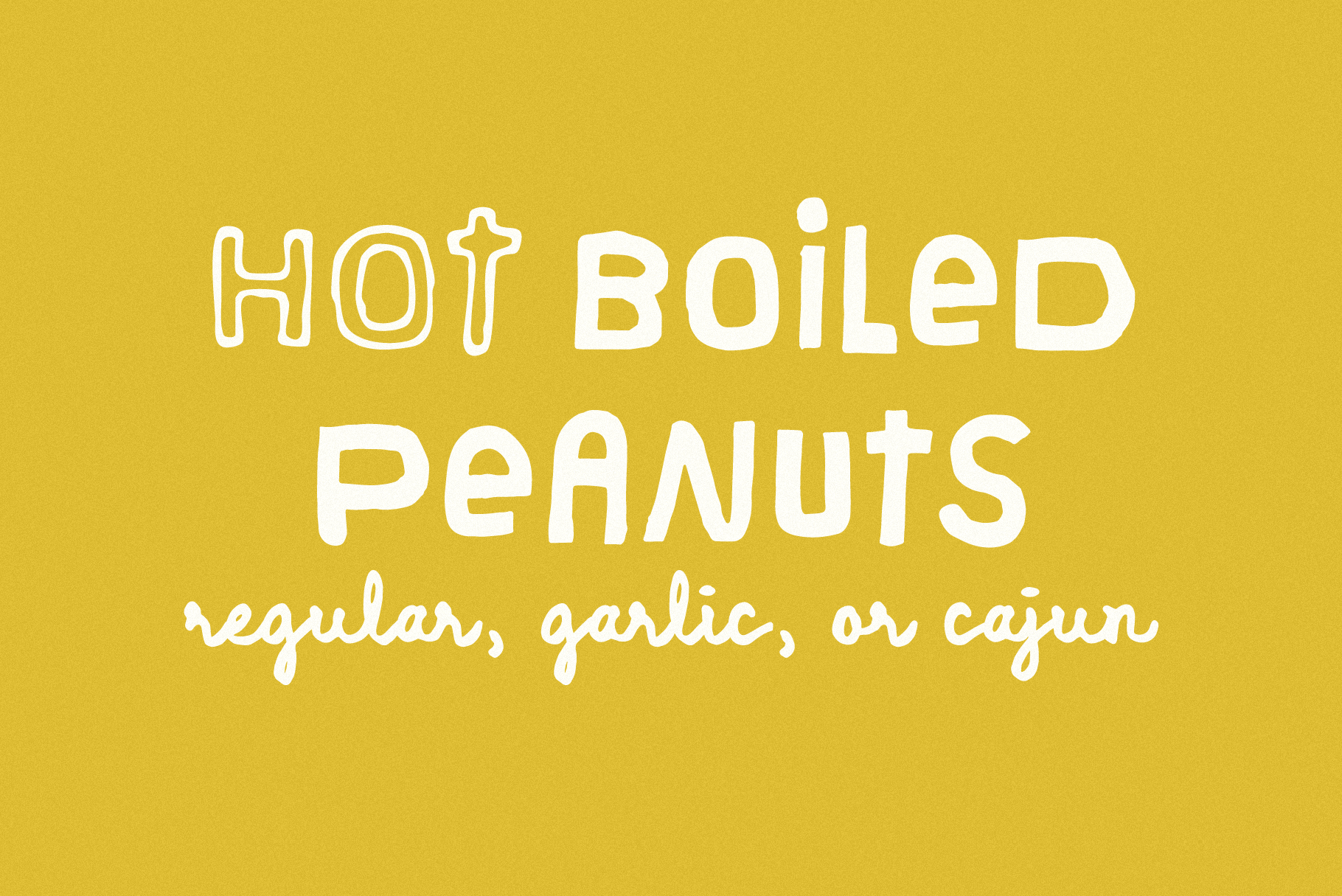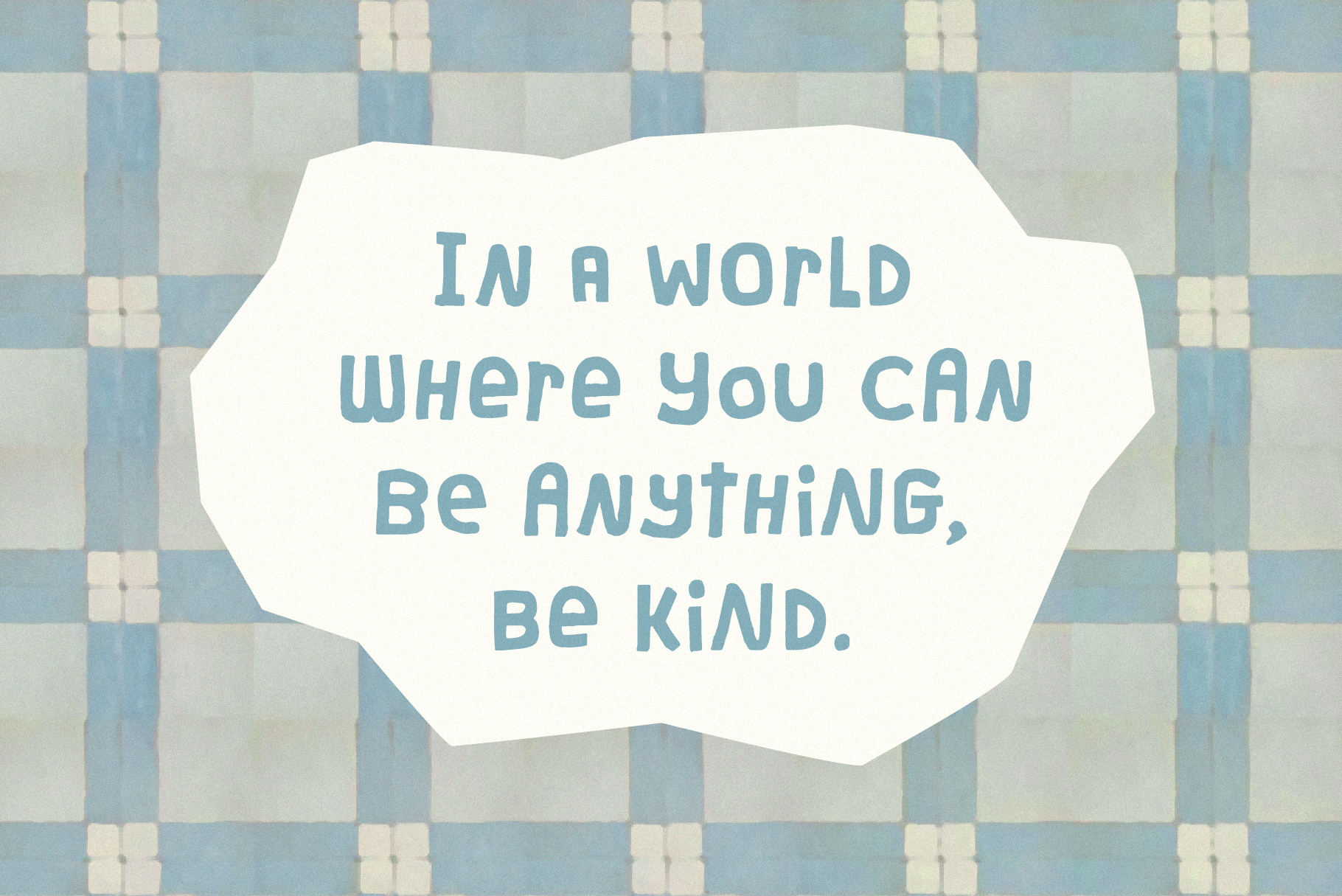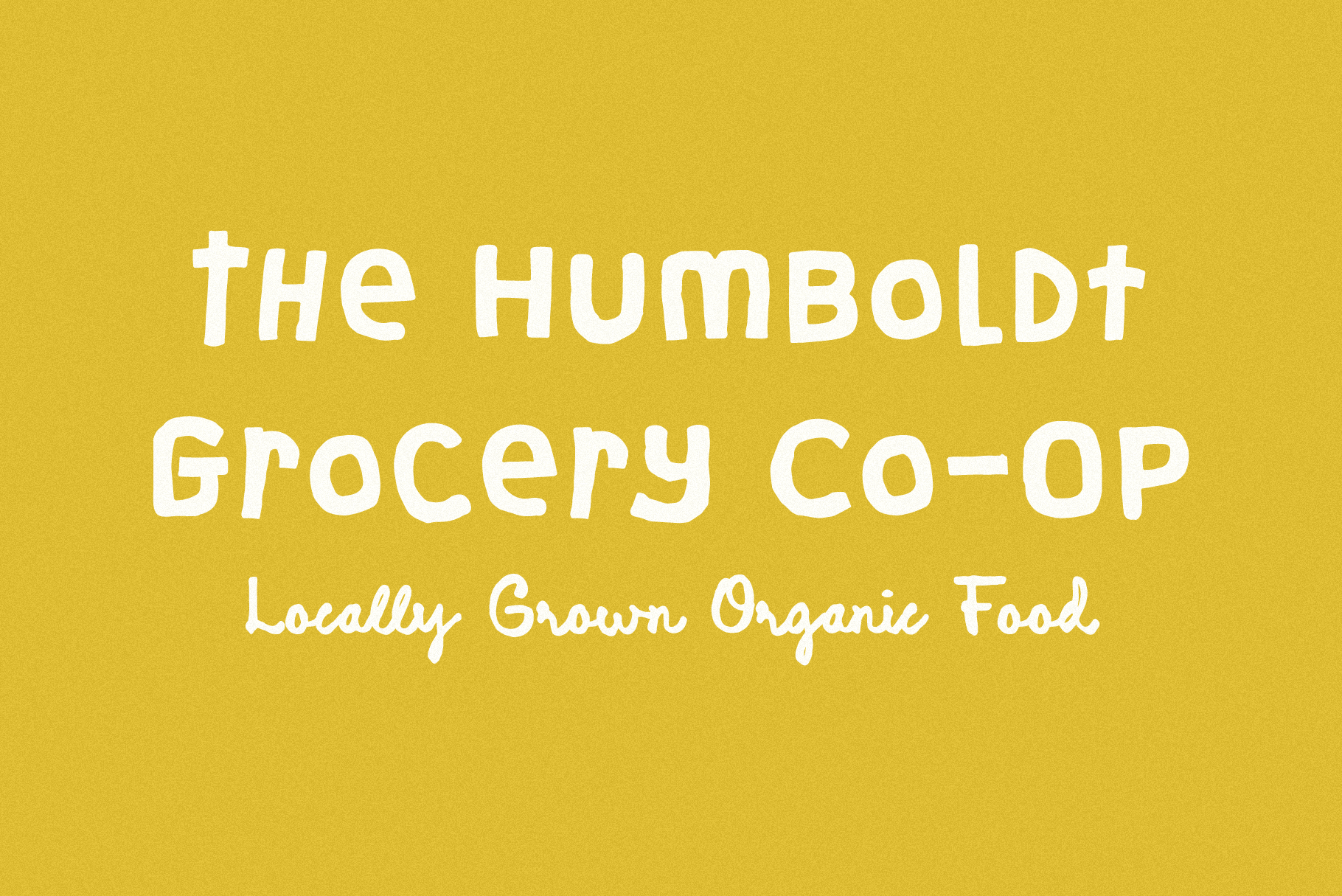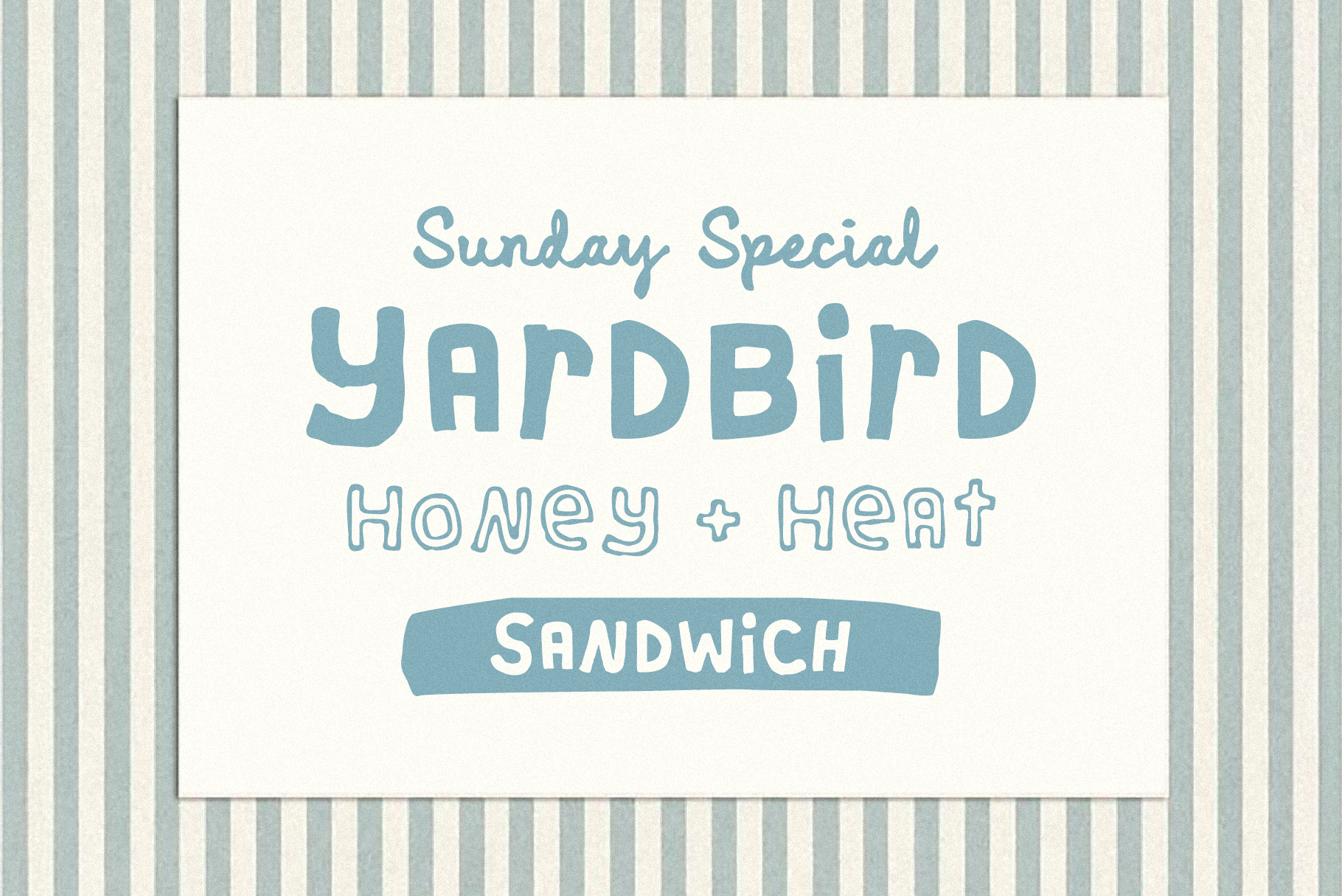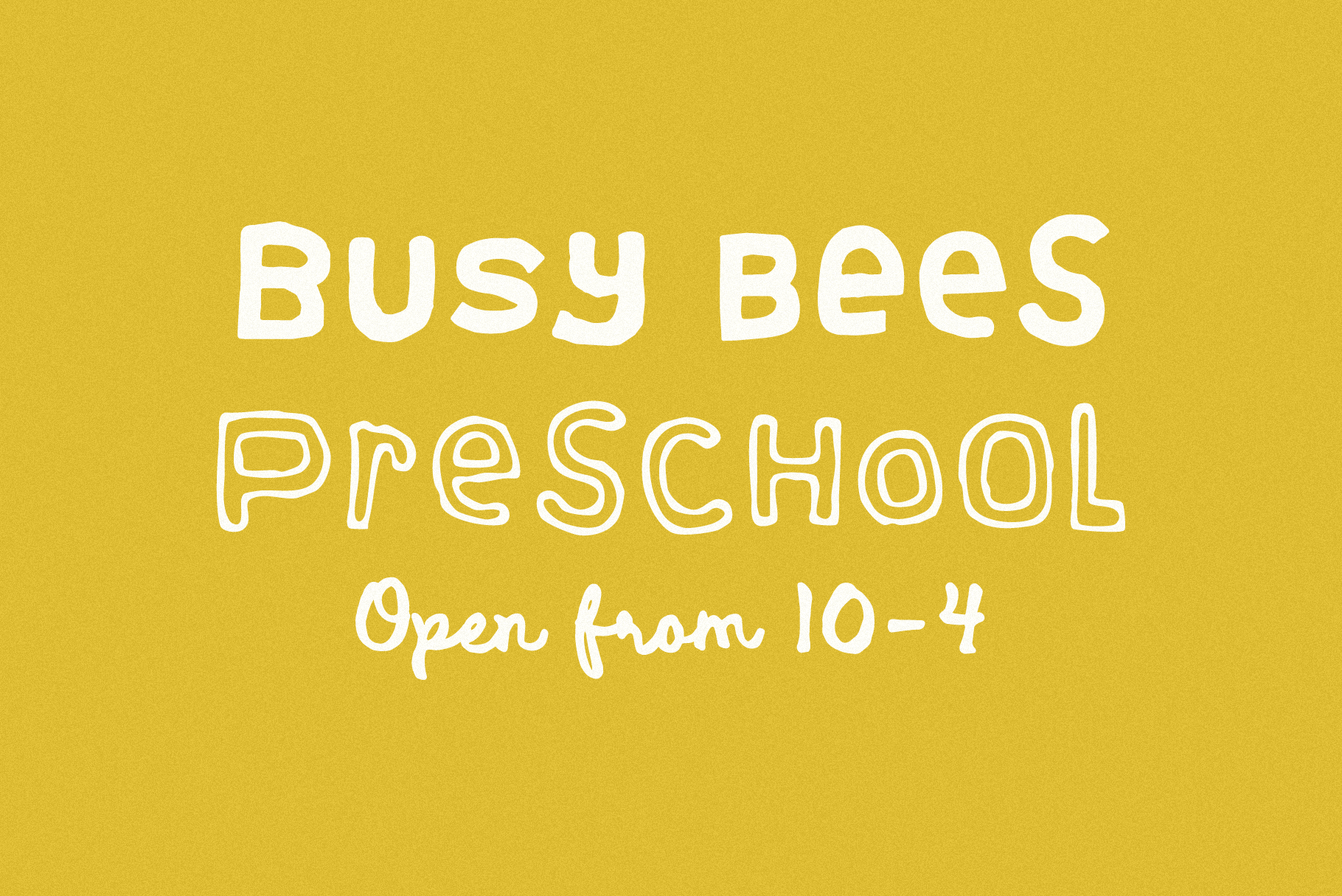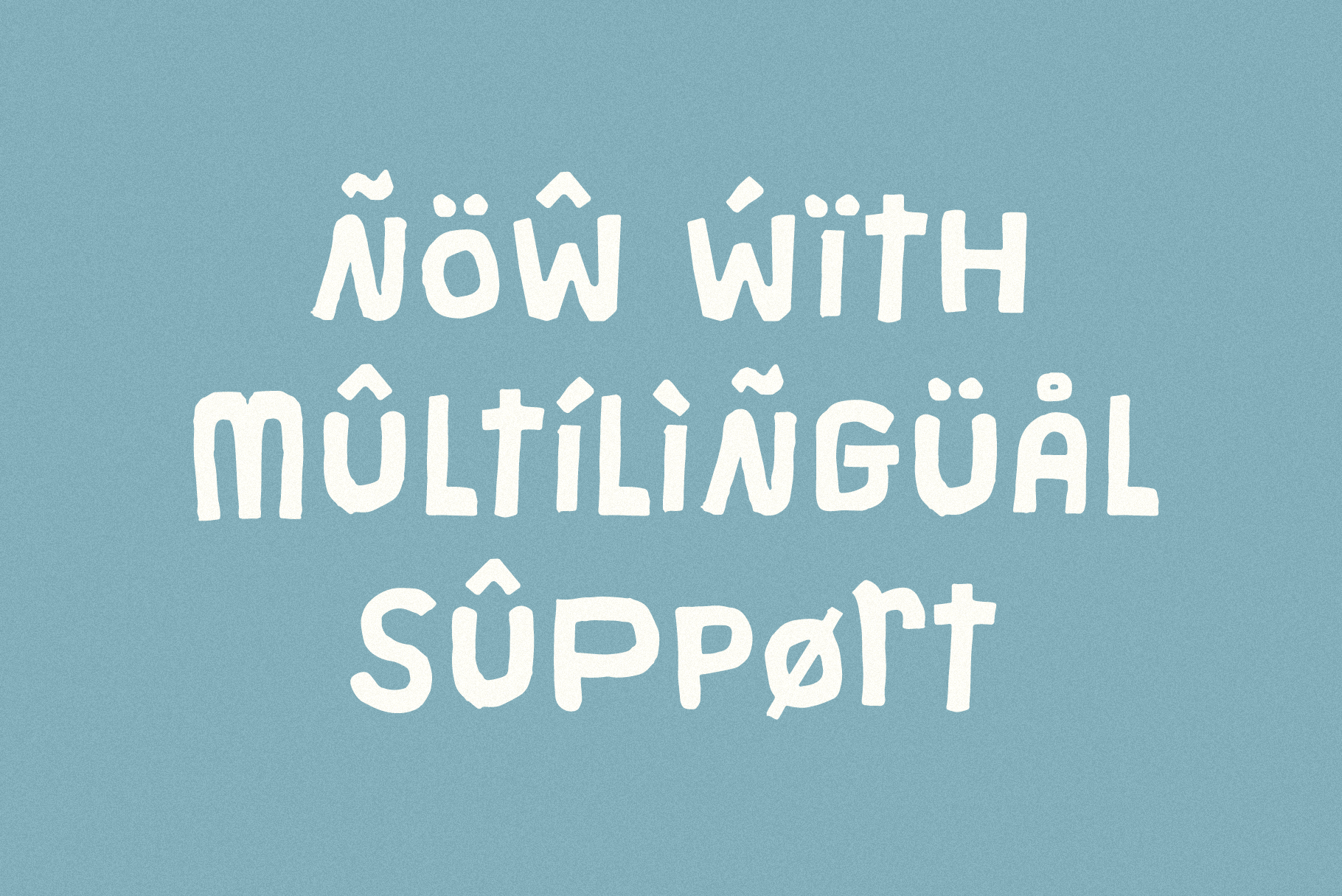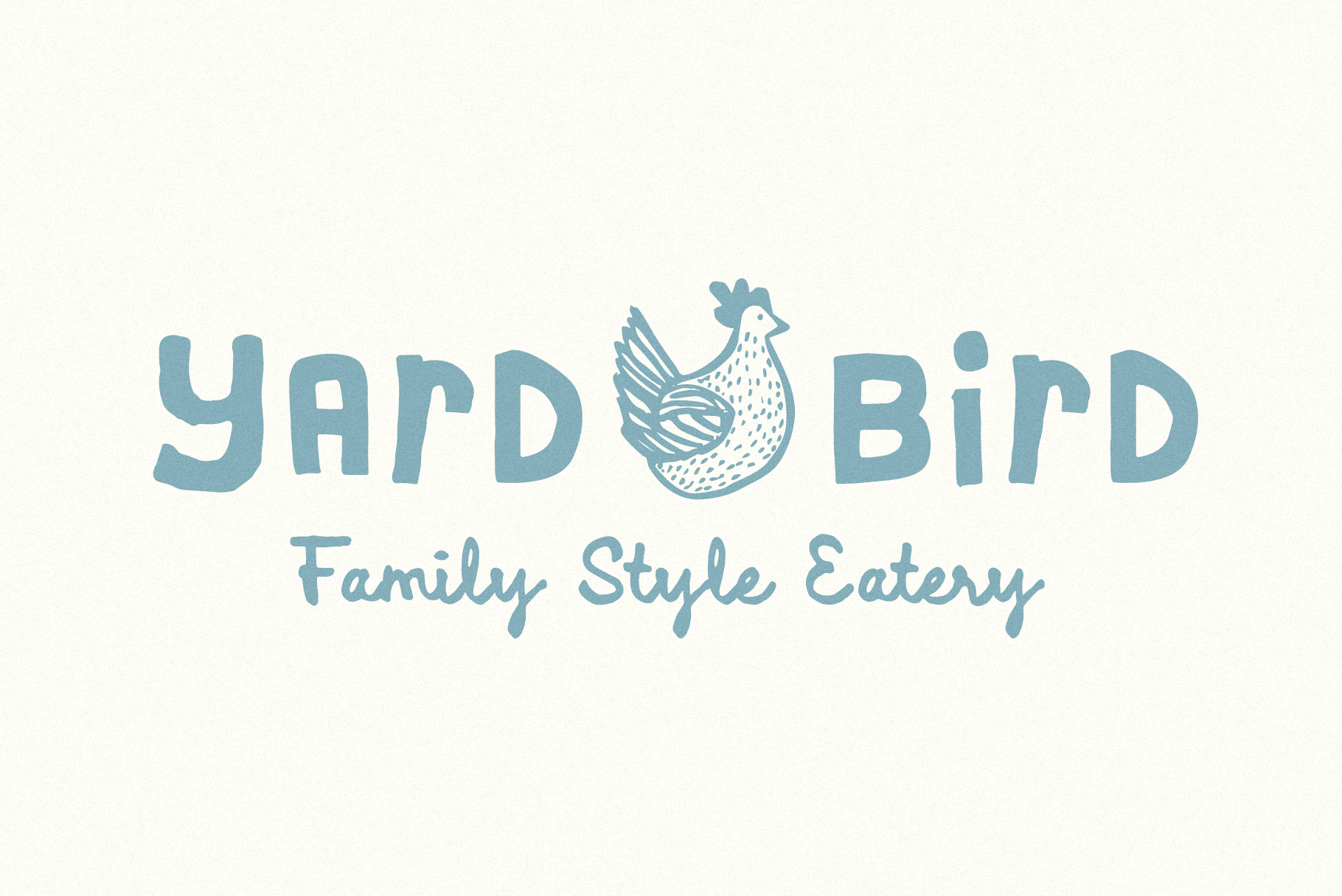
Marigold Market + Strawberry Jane
MARIGOLD MARKET + STRAWBERRY JANE – Introducing our newest lovably lopsided font duo! These two are ripe with charm—one’s sweet, the other’s a little tart, and together they make your designs feel like a hand-painted sign on a dusty roadside fruit stand. They're imperfect in all the best ways.